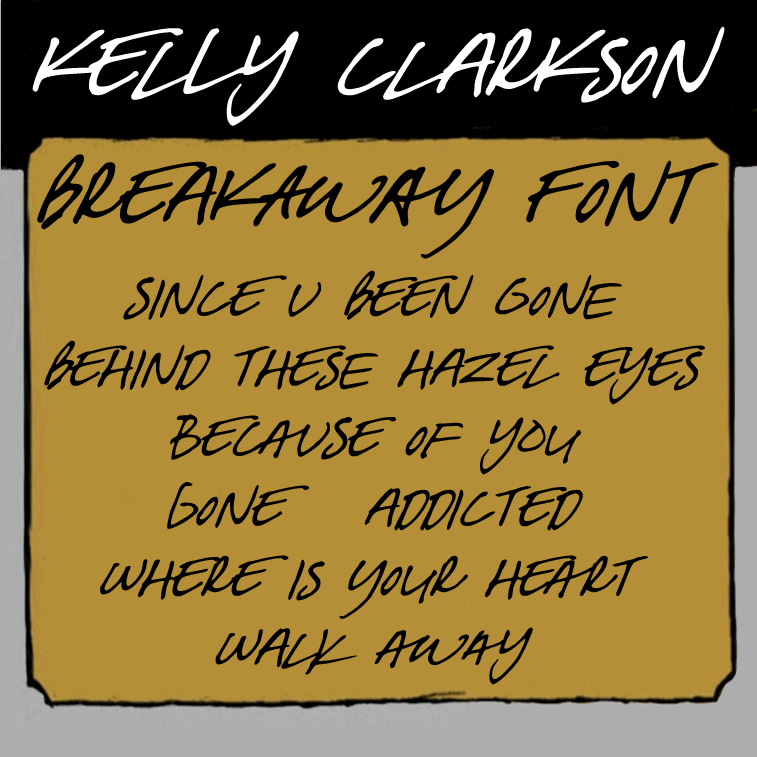
Font name: | Breakaway |
Author: | xpeehdroox |
Note by xpeehdroox | |
Font created by me inspired by Kelly Clarkson's Breakaway album and single covers. Font with accents. |